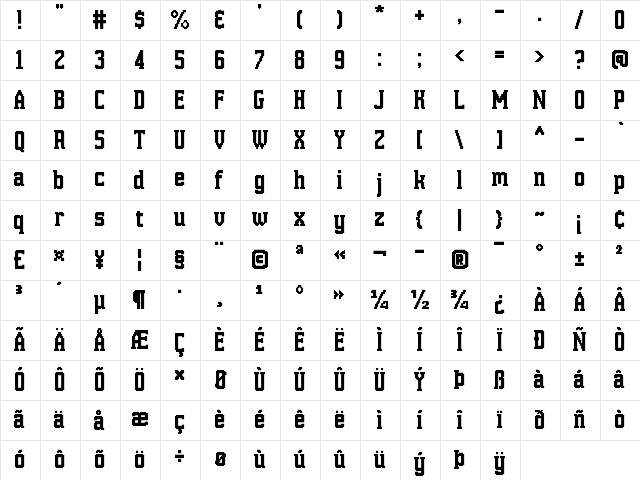
Complete Hannover Messe Serif Regular glyph index. Displaying only characters natively supported by Hannover Messe Serif Regular font.
Hannover Messe Serif carries the refined structure of traditional serif typography, with bracketed terminals and considered proportions that communicate credibility and craft.